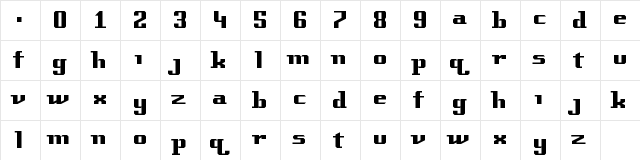
Vista Porto Regular
Design Context for Vista Porto Typeface
Vista Porto is a composed and adaptable typeface that performs quietly and consistently across a wide range of design contexts.